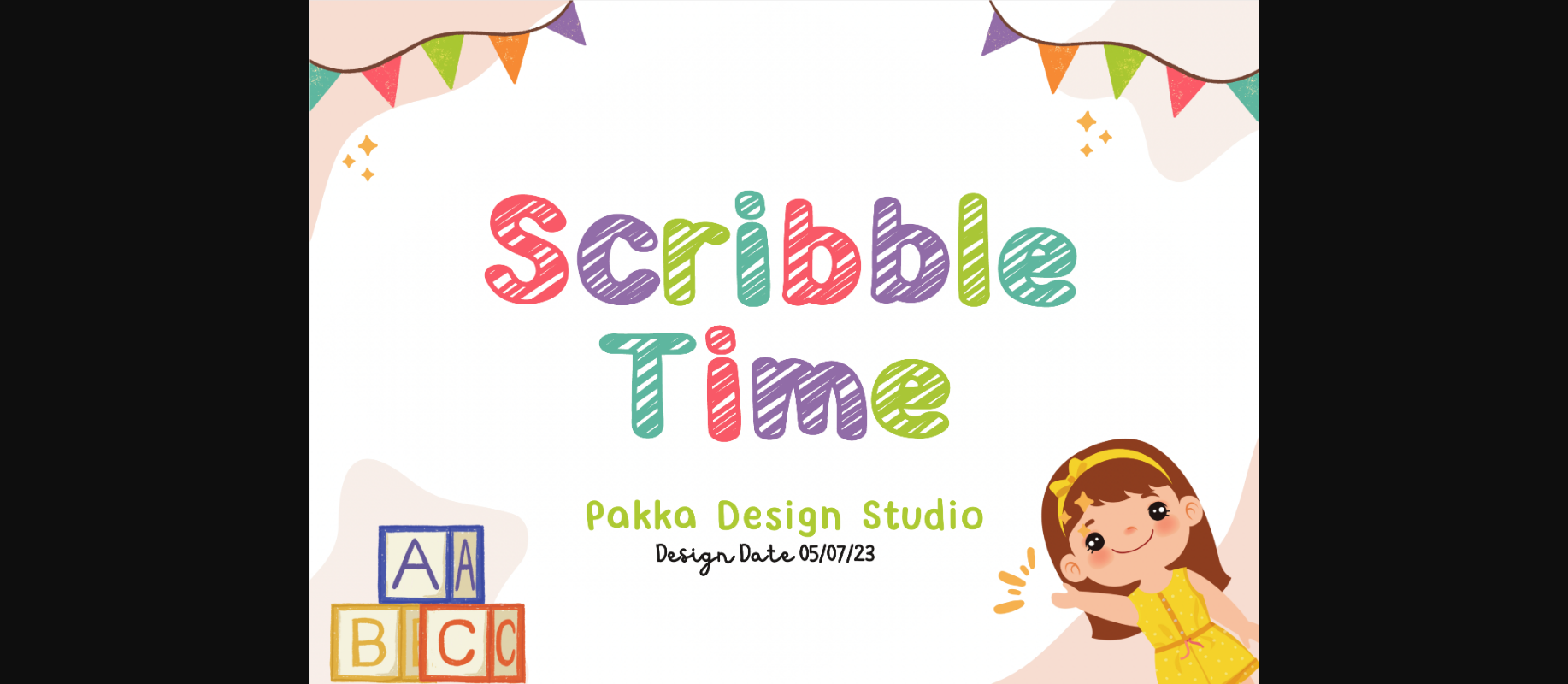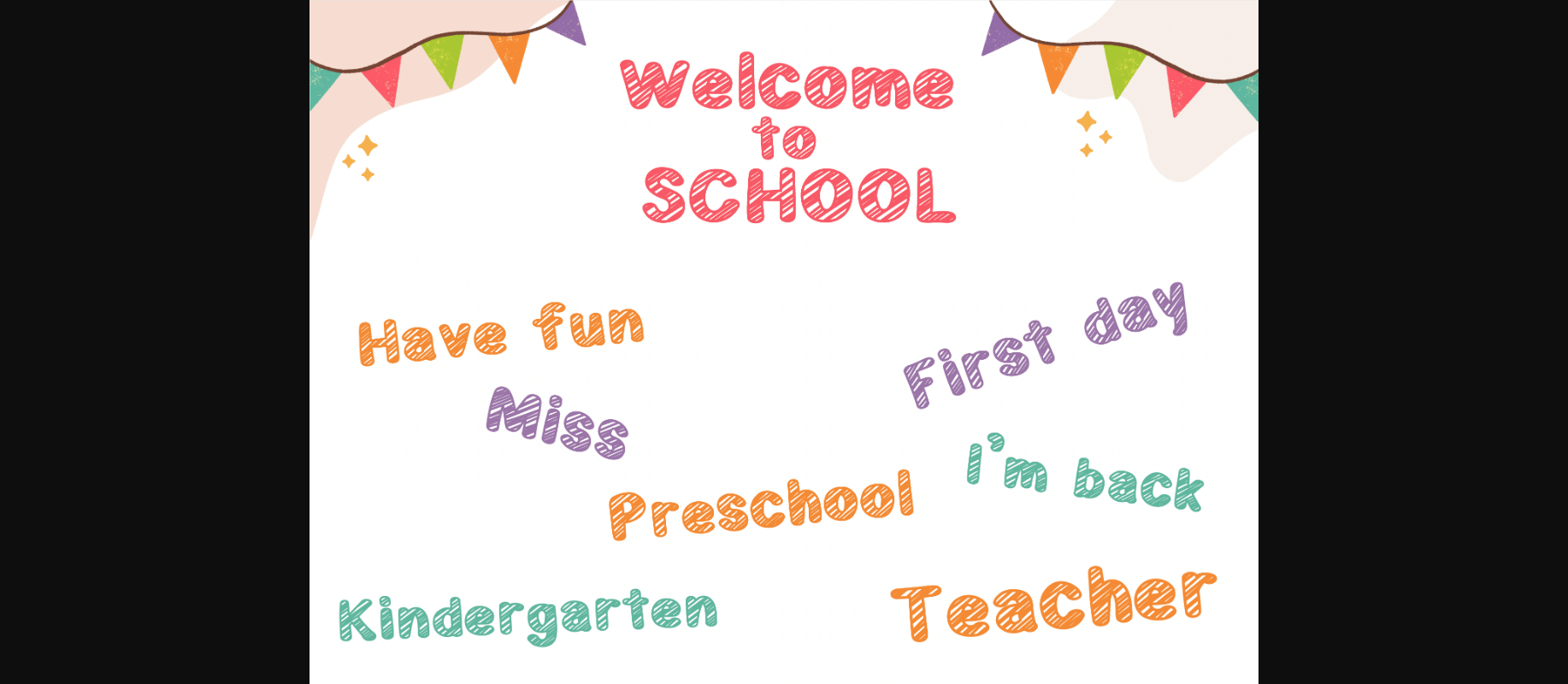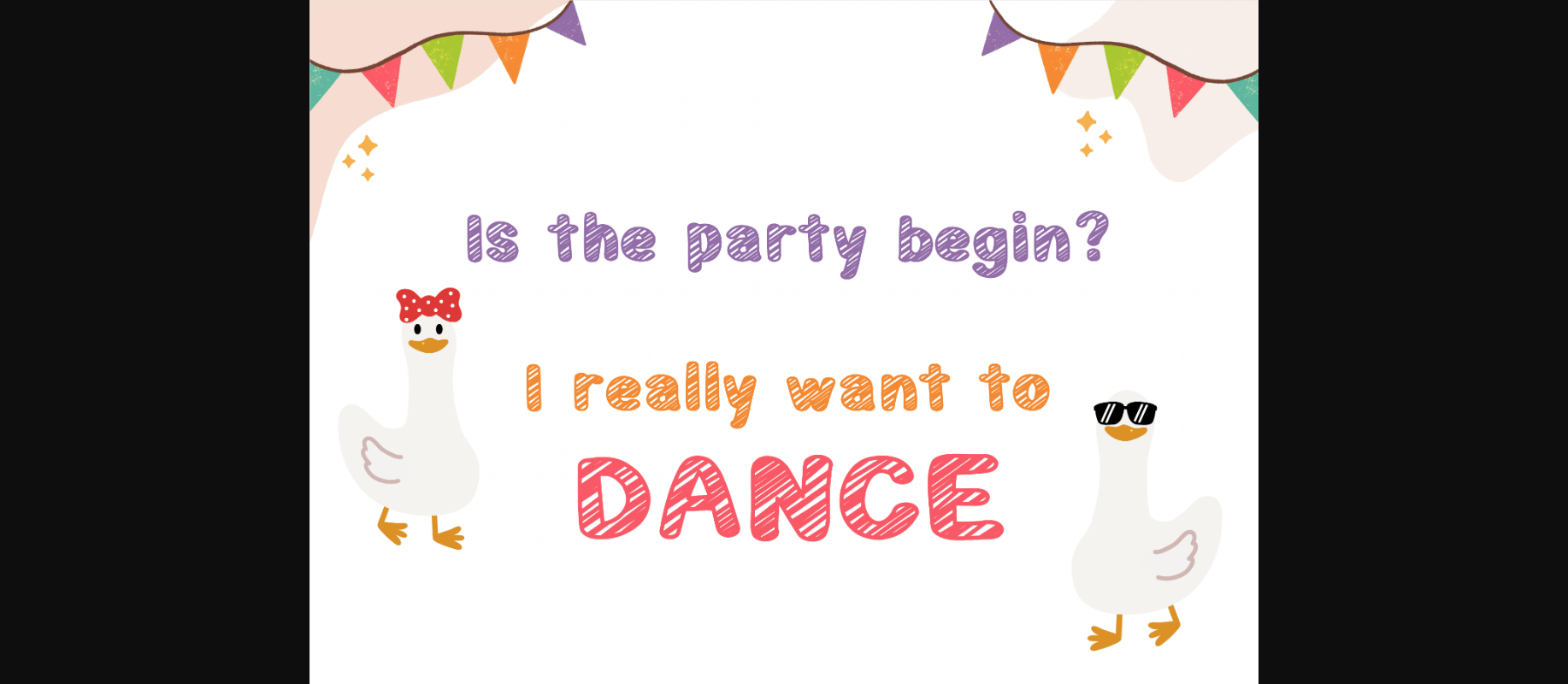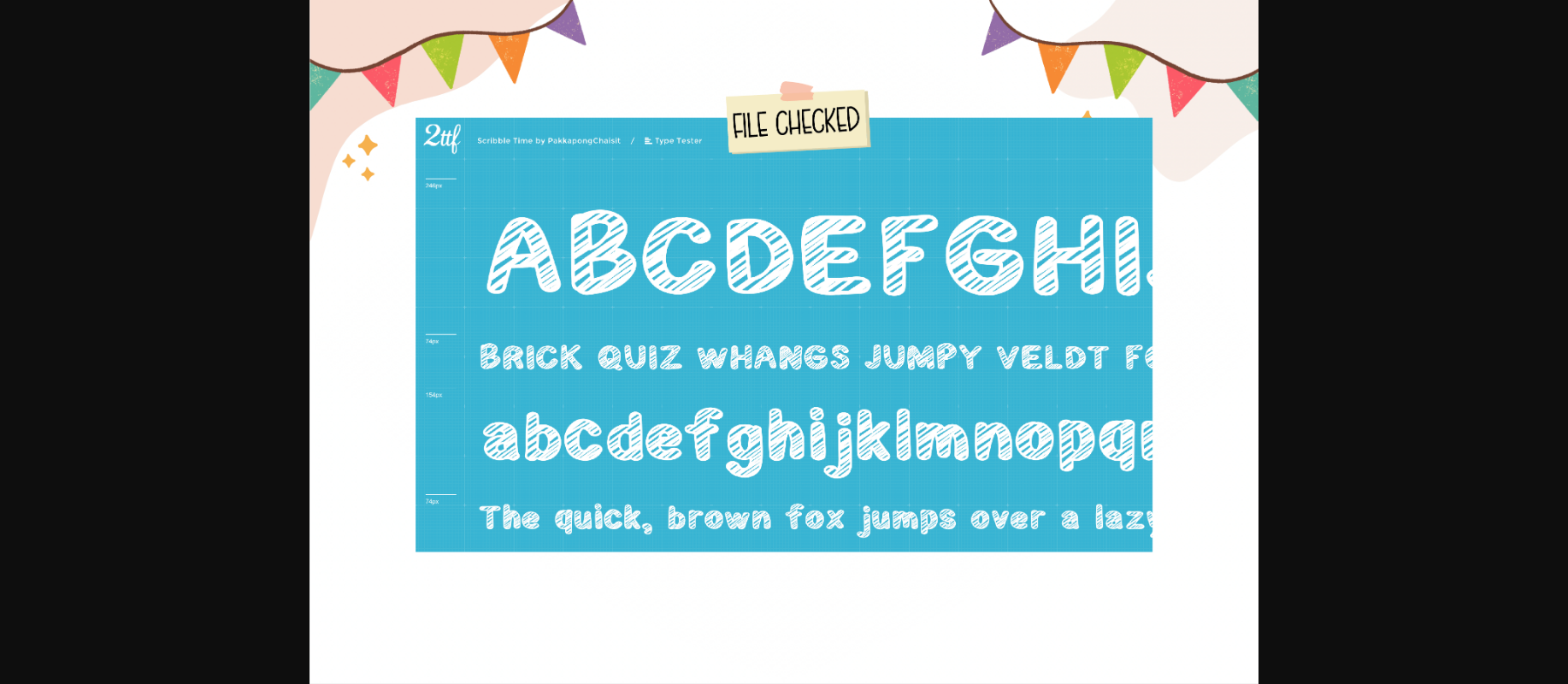
About Scribble Time Font
A scribble style font in a kids party theme captures the exuberant and carefree spirit of youthful celebration. Each letter appears as if hand-drawn with whimsical and spontaneous scribbles, adding a playful and lively touch. The font embodies the joy and excitement of a kids party, evoking images of colorful balloons, confetti, and laughter. With its scribbled lines and childlike charm, this font brings a sense of fun and imagination to any design. It conveys a sense of carefree creativity, reflecting the spontaneity and energy that are hallmarks of kids’ celebrations. This font is the perfect choice to infuse a festive and vibrant atmosphere into party invitations, decorations, and other designs for kids’ events